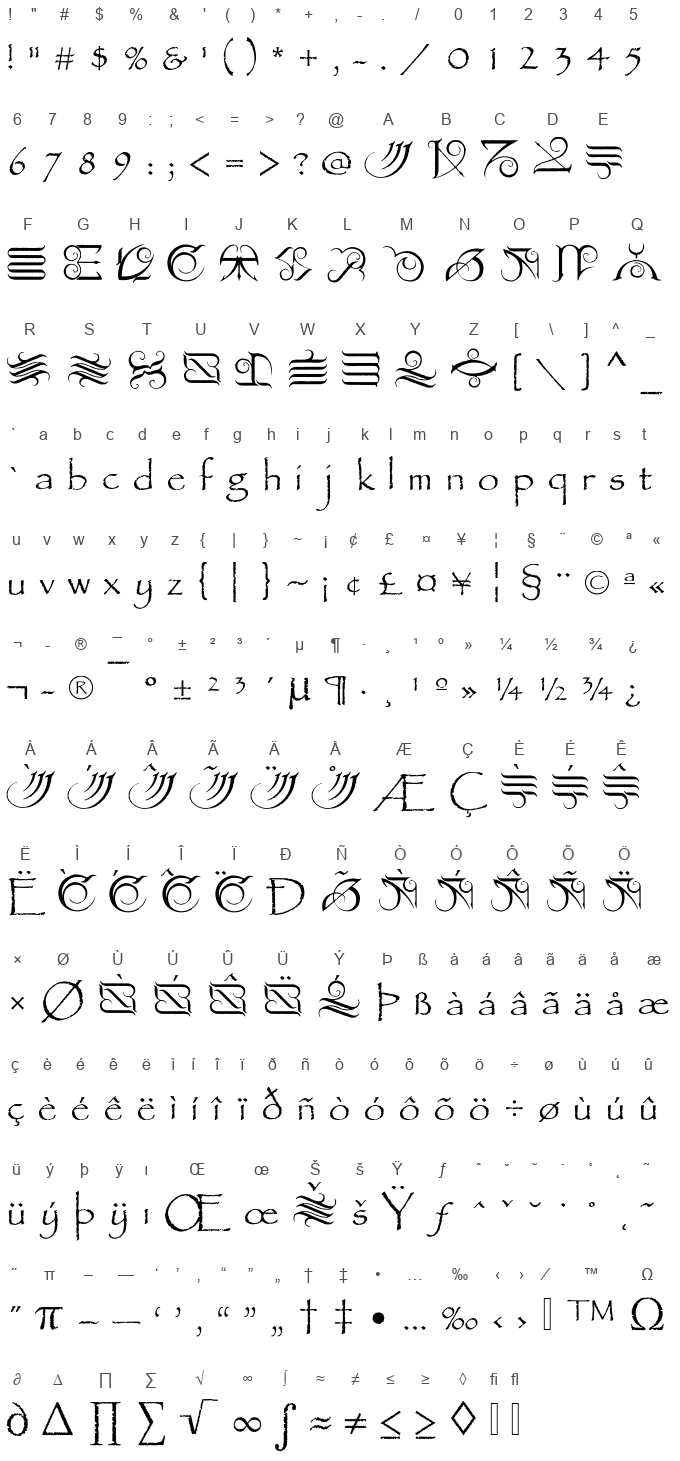
Is it just me, or are the lowercase letters the same as Papyrus?
Nope, you are totally right. Don’t know how to handle this.
This is the font that the band A Perfect Circle uses :)